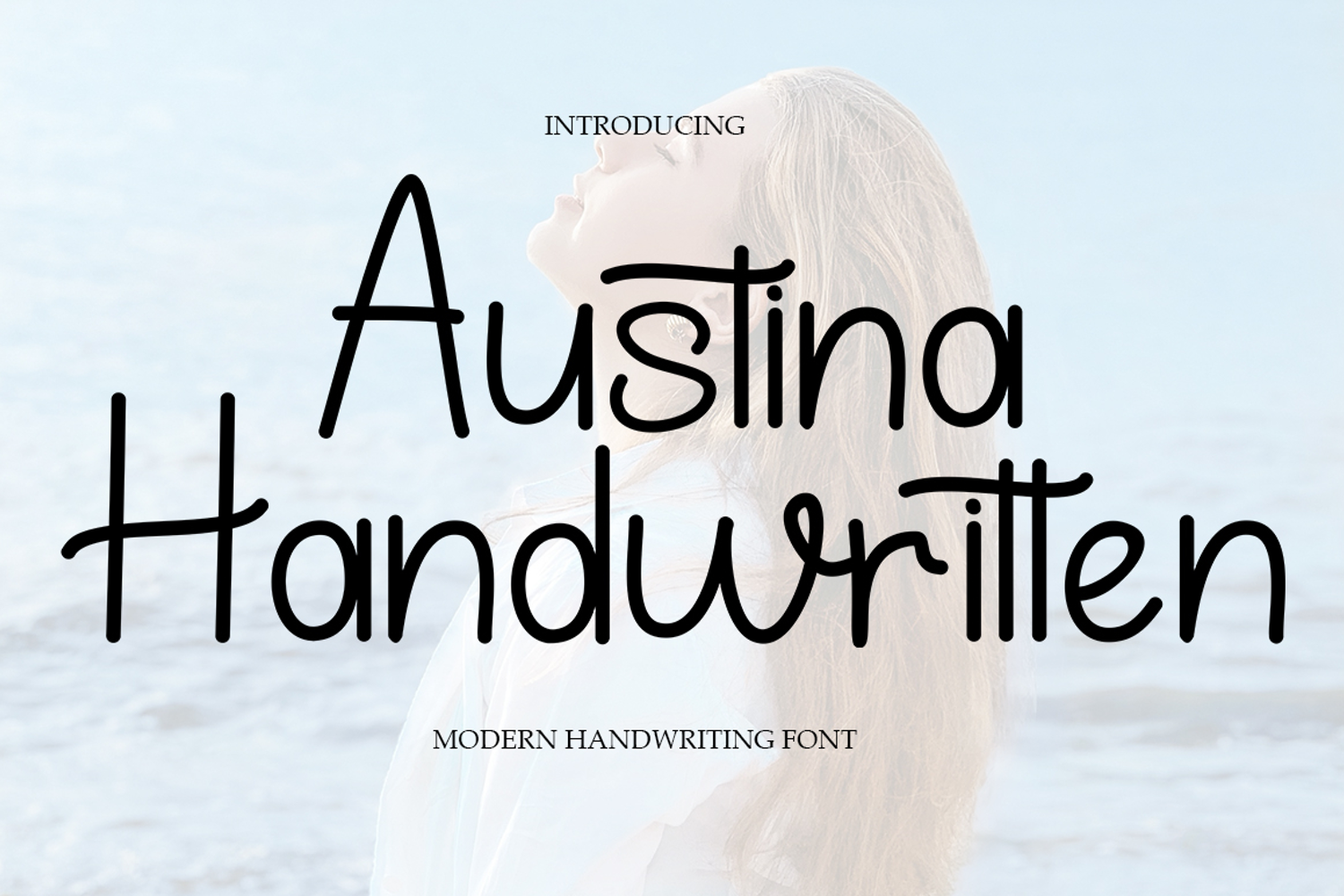
Austina Handwritten
Austina Handwritten is a fun handwritten font filled with handwritten charm and personality! It is the perfect choice for crafters with lawn mowers, as it is extremely smooth for optimal cutting performance.